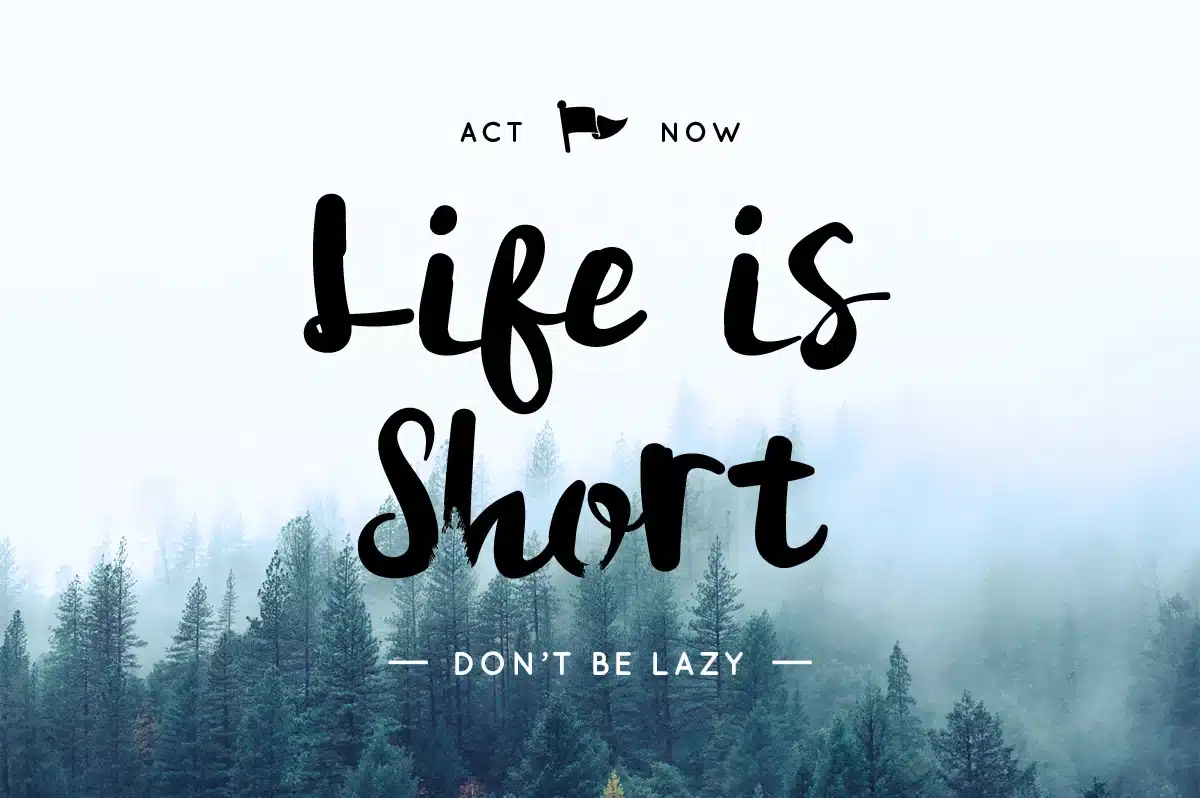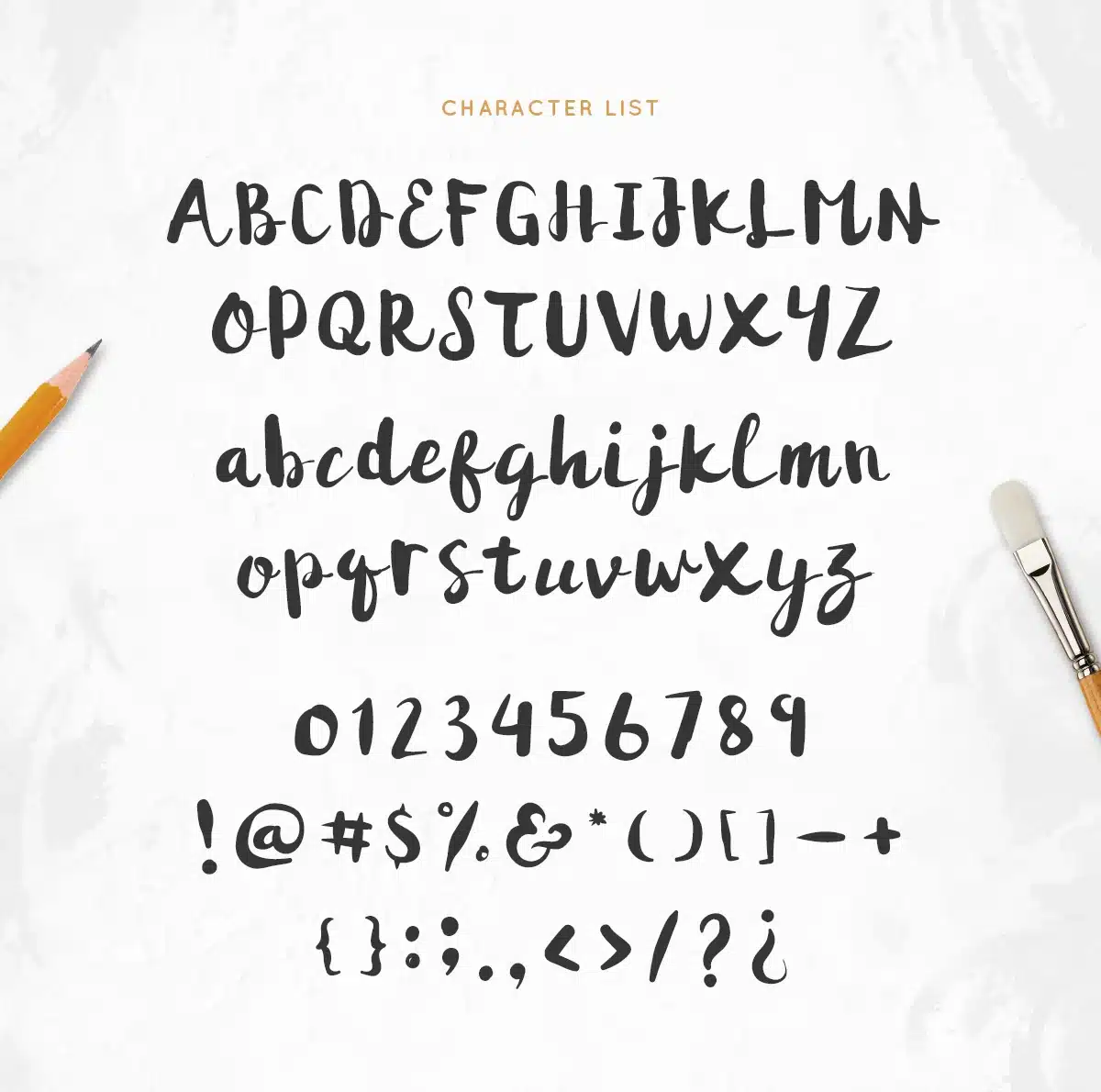
Wayback Font
Wayback font is a carefully crafted font. This item also comes with FREE 6 BADGES & ORNAMENTS. Every single letters have been carefully crafted to make your text looks awesome. Wayback font can be used for branding, logo, fashion, apparel, letter, invitation, stationery, etc